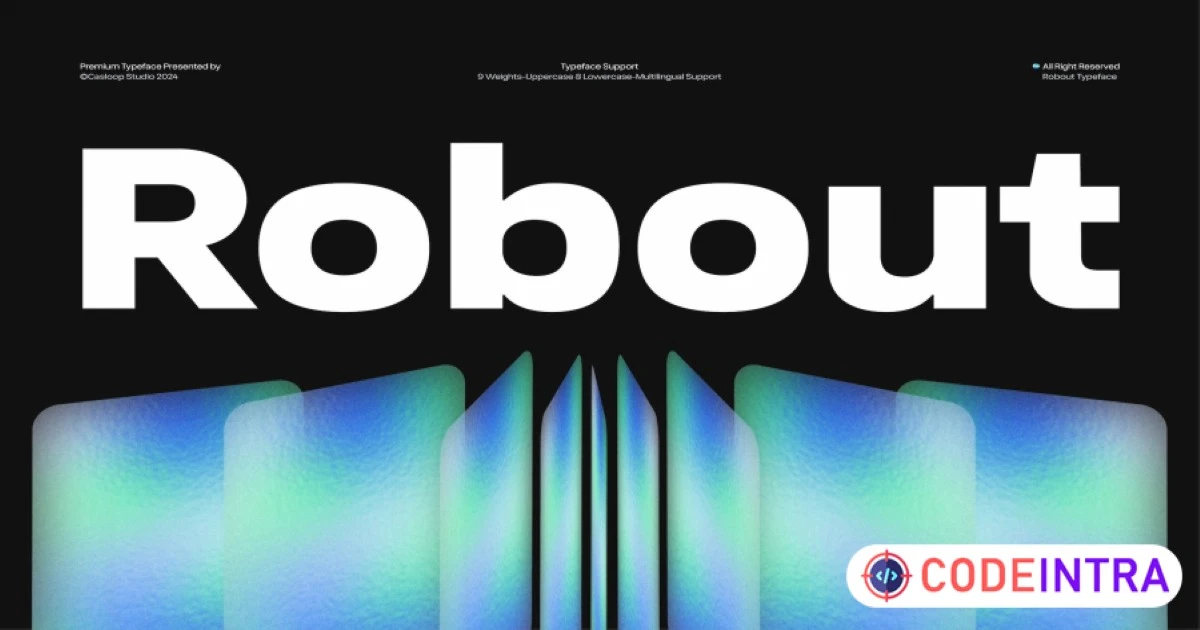
Robout is a marquee-worthy modern sans-serif typeface designed for contemporary branding, editorial design, and digital interfaces. With clean, geometric letterforms and a focus on clarity and precision, Robout exudes professionalism and sophistication. Inspired by geometric grotesk styles, Robout seamlessly balances functionality with contemporary flair. Here are the key features and highlights of the typeface:
Features of Robout Typeface
Applications:
Robout stands as a professional yet approachable typeface, balancing a clean, minimalist style with a hint of boldness. It communicates trust, innovation, and clarity, making it suitable for industries ranging from technology and education to fashion and media.